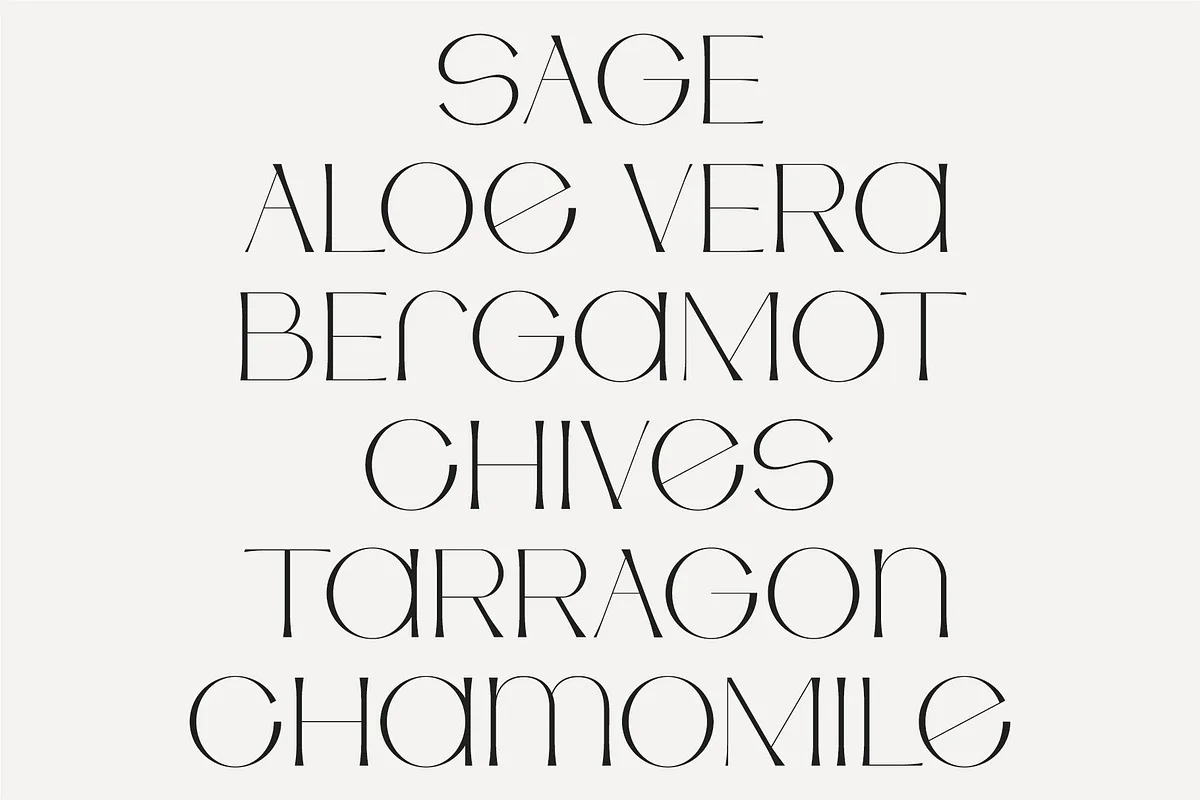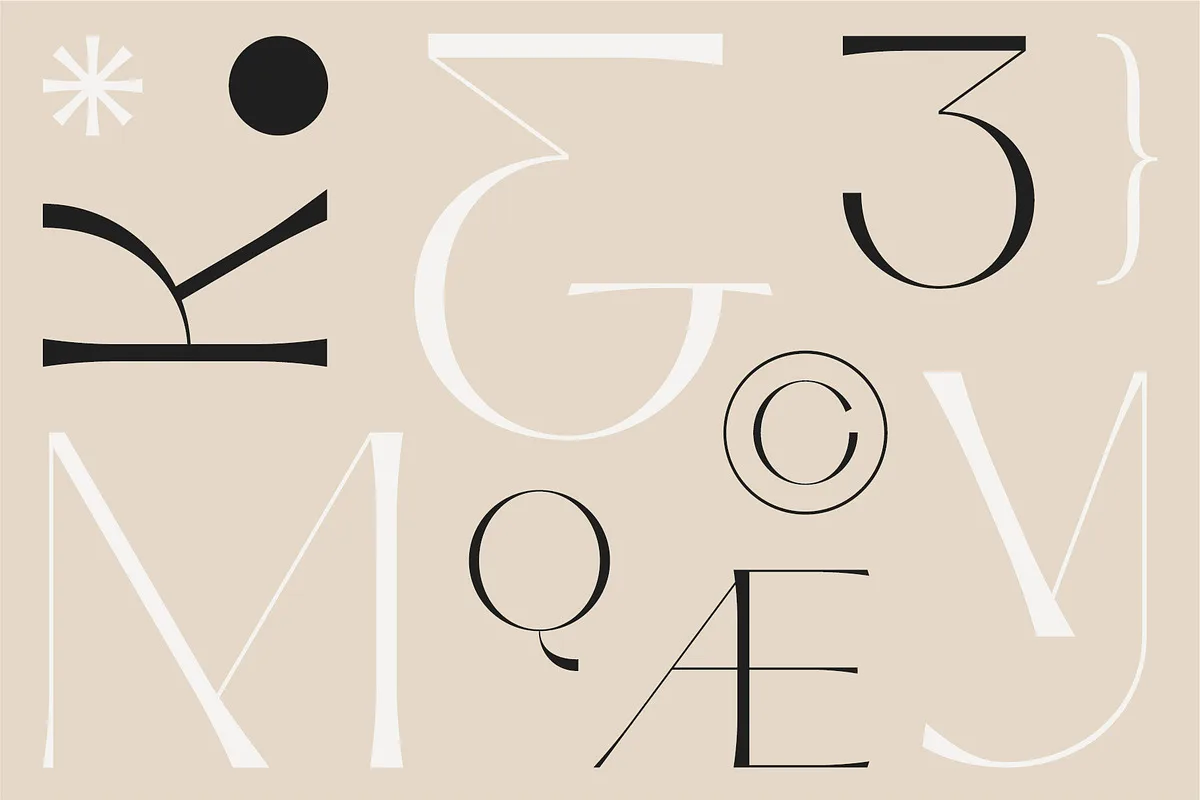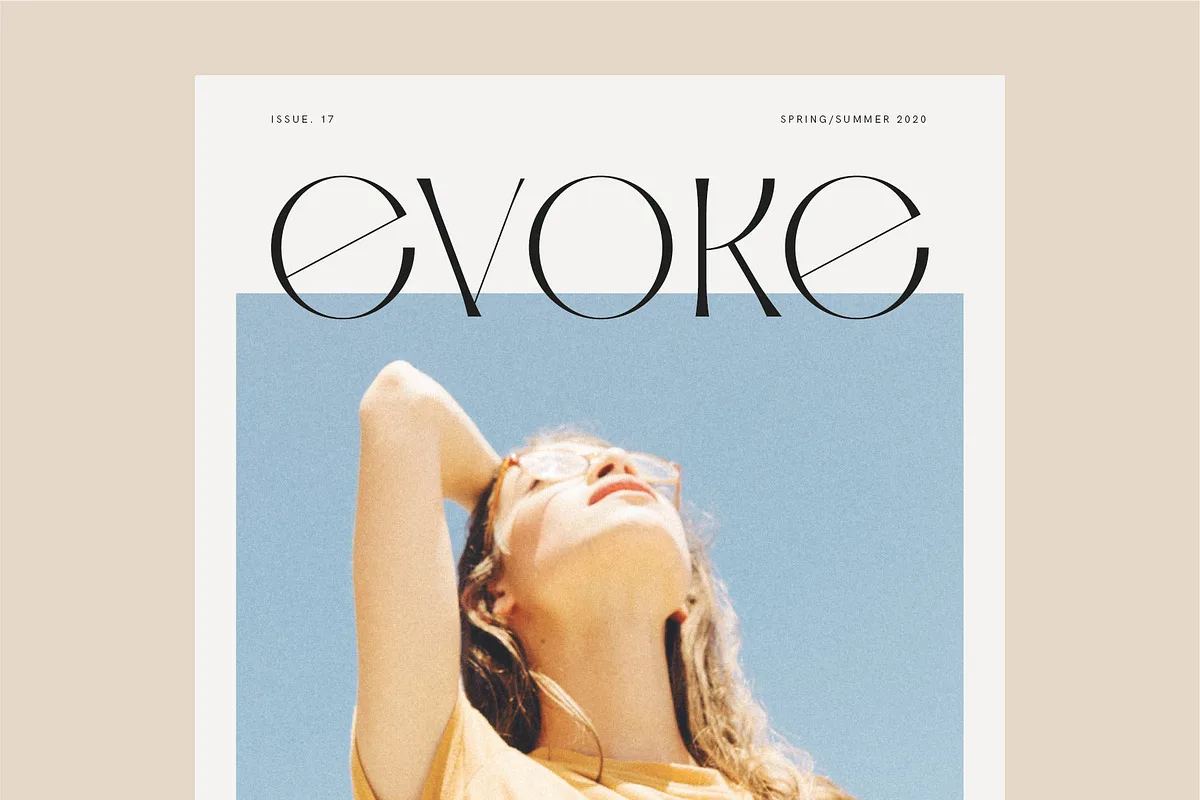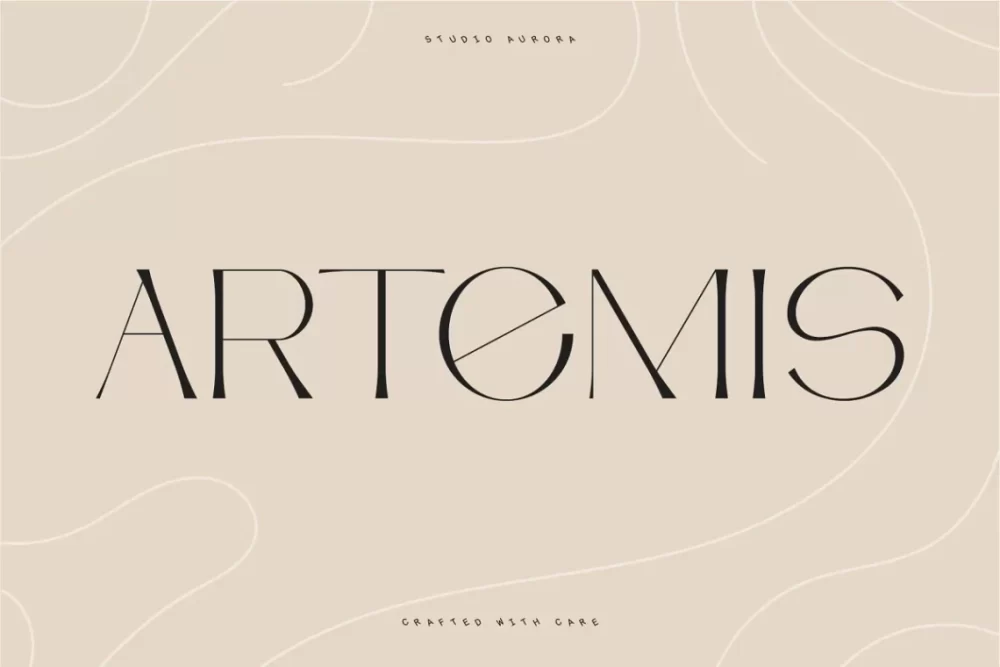
Artemis is a contemporary and elegant display semi-serif typeface. Uppercase and lowercase characters use the same cap height, meaning all characters are the same height. This allows for unique combinations between upper and lowercase characters to create great variety in your designs.
This is primarily a display font that we recommend using in the following types of work; magazines (titles and layouts), logos and branding, invitations, quotes, blog headers, posters, and advertising.
- Uppercase and lowercase glyphs
- Punctuation
- Numbers
- Multilingual support